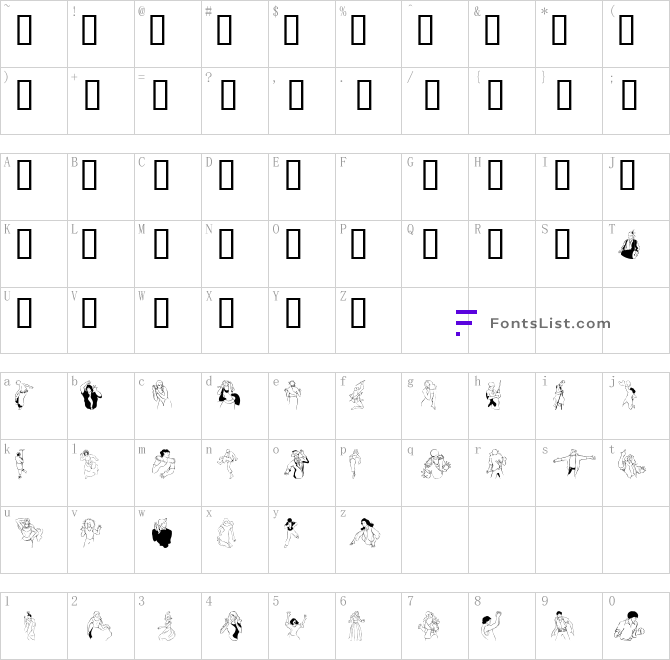
- Font Name:Dancer In The Dark III
Dancer-In-The-Dark-III.ttf is a very beautiful artistic font, Dancer-In-The-Dark-III.ttf is widely used in the design and printing of various books and pictures,Dancer-In-The-Dark-III.ttf has a strong visual impact,Dancer-In-The-Dark-III.ttf is a commonly used font in newspapers, magazines and books, and is used in posters, e-commerce Poster design, store design, logo design, font design and other fields.Dancer-In-The-Dark-III.